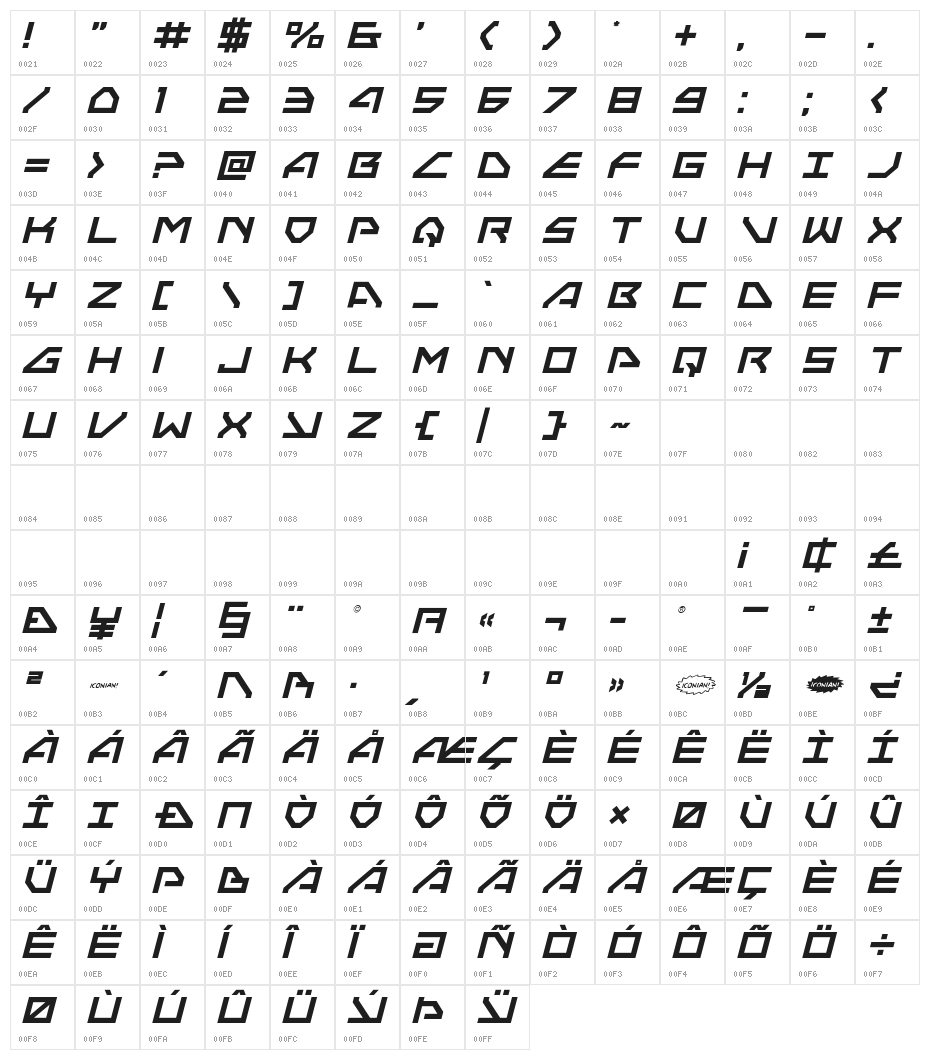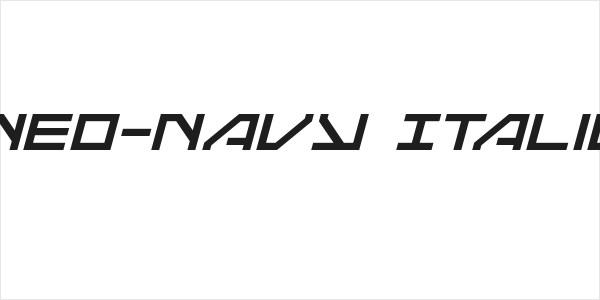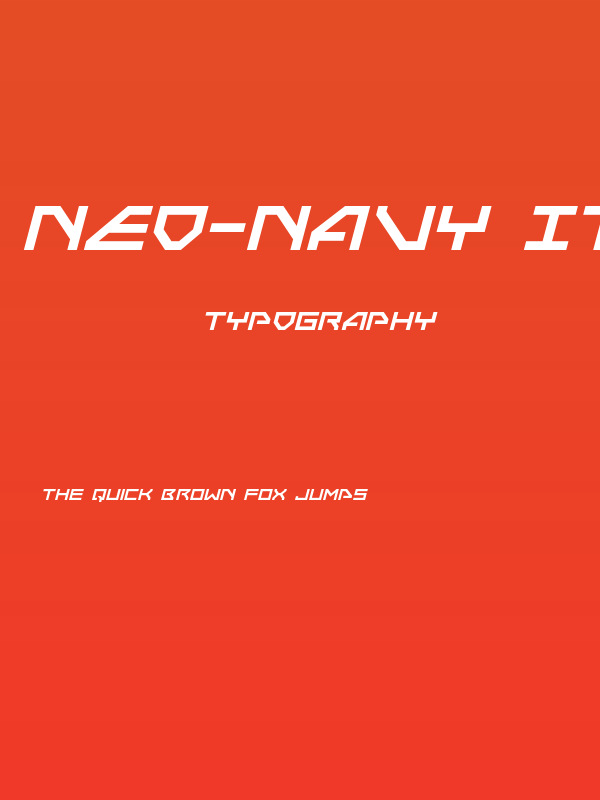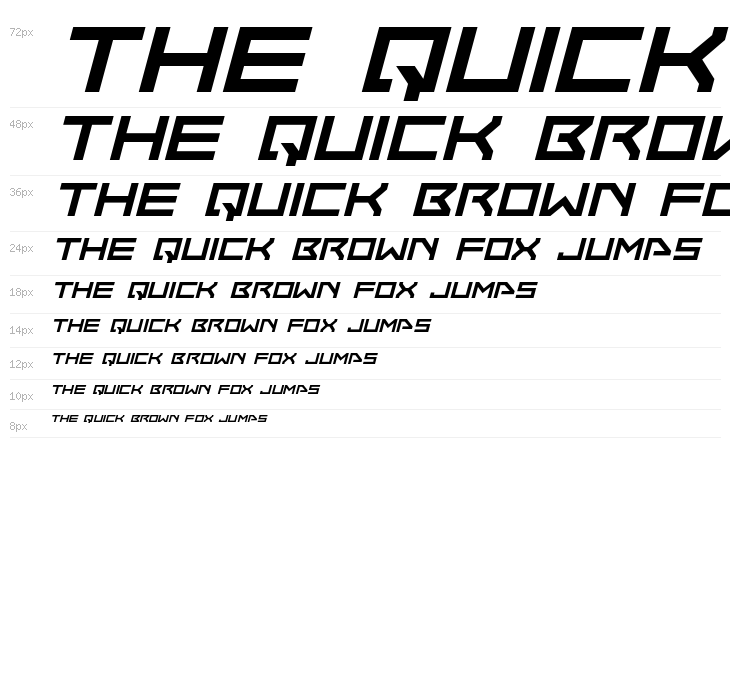
Neo-Navy Italic Font
Neo-Navy Italic Description
This font features a bold, angular design with a futuristic and dynamic feel. The characters are slanted, giving an italicized appearance that enhances its modern aesthetic. Each letter is constructed with sharp edges and geometric shapes, creating a sense of movement and speed. The numbers and special characters maintain this cohesive style, ensuring a consistent look across all glyphs. The font's unique style makes it stand out, ideal for projects that require a strong visual impact.
| Proposed Projects | Perfect for sci-fi themed designs, video game titles, technology branding, and sports team logos. |